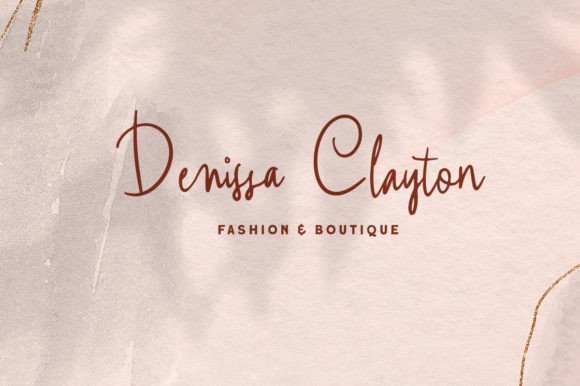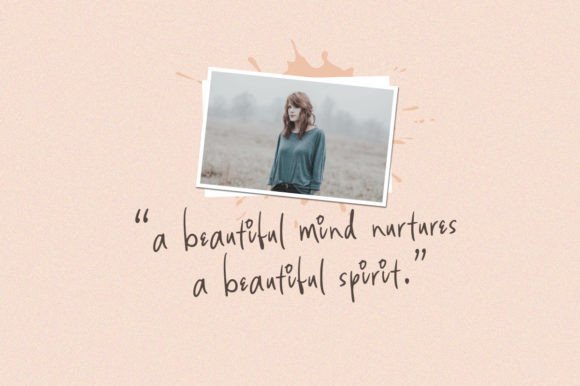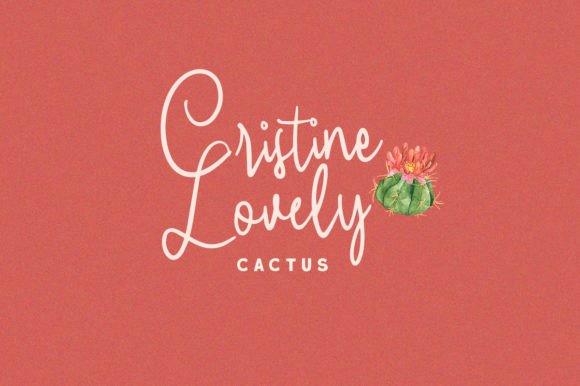
Introduction to Olive Wildheart Font
Olive Wildheart is a sophisticated script based on manual handwriting.
This typeface comes with 2 style fonts which you can choose from This type of font is perfectly made to be applied especially in logos, and other various formal forms such as invitations, labels, logos, magazines, books, greeting/wedding cards, packaging, fashion, make up, stationery, novels, labels or any type of advertising purpose.
Key Features of Olive Wildheart Font